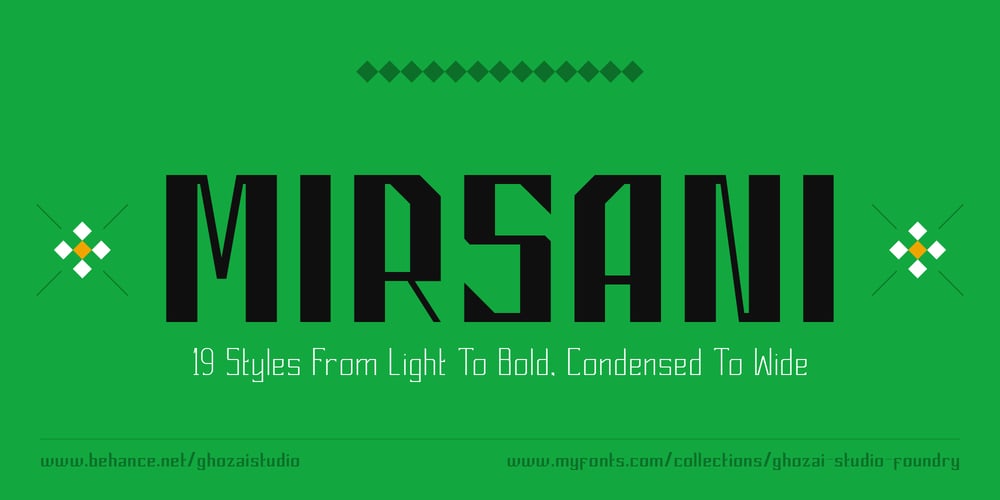
Mirsani
Mirsani font
Mirsani Font Family was designed by Manzur Ghozaali and published by Ghozai Studio. Mirsani contains 19 styles and family package options. Mirsani is a font inspired by traditional culture, brought to life through geometric shapes. While it draws from classic roots, its versatile design makes it perfect for modern, sci-fi, and technology-themed projects, blending the old with the new in a unique way.With a wide range of variations,. from condensed to wide, and light to bold,. Mirsani offers endless possibilities, allowing you to adapt it seamlessly to any design need. Whether you’re creating something sleek and futuristic or rooted in tradition.